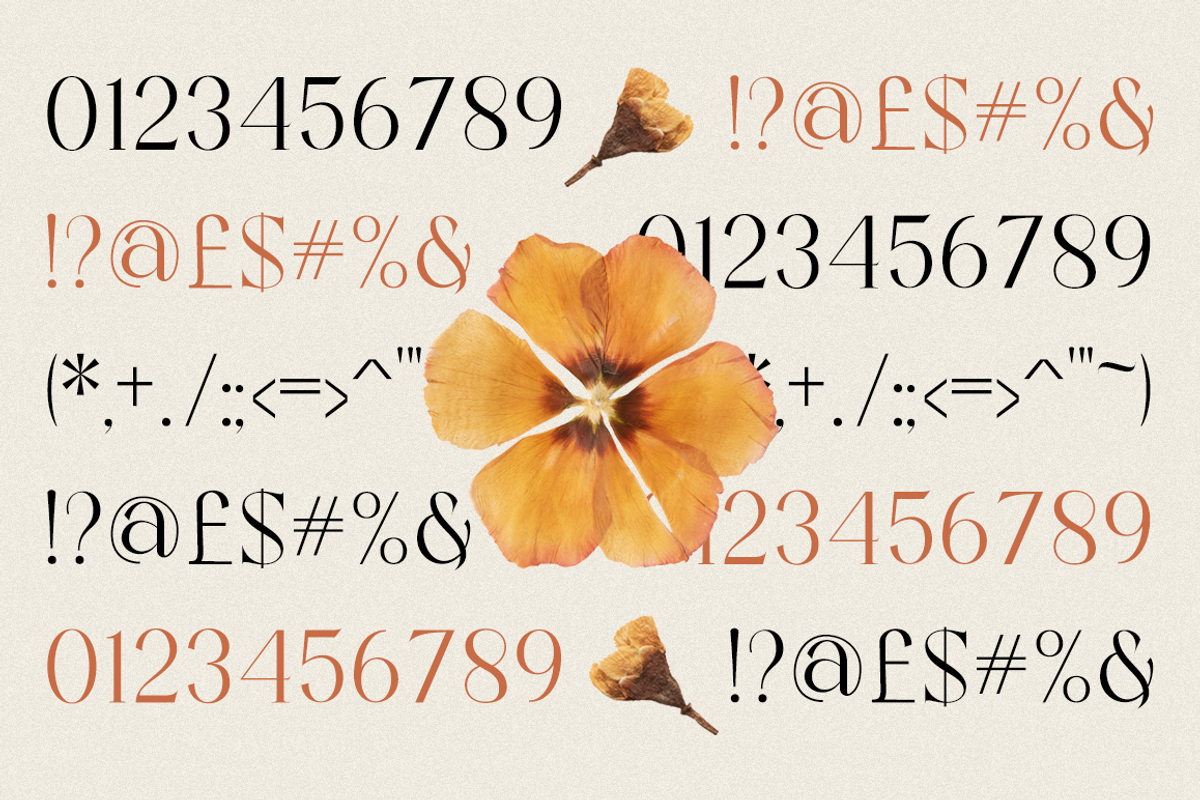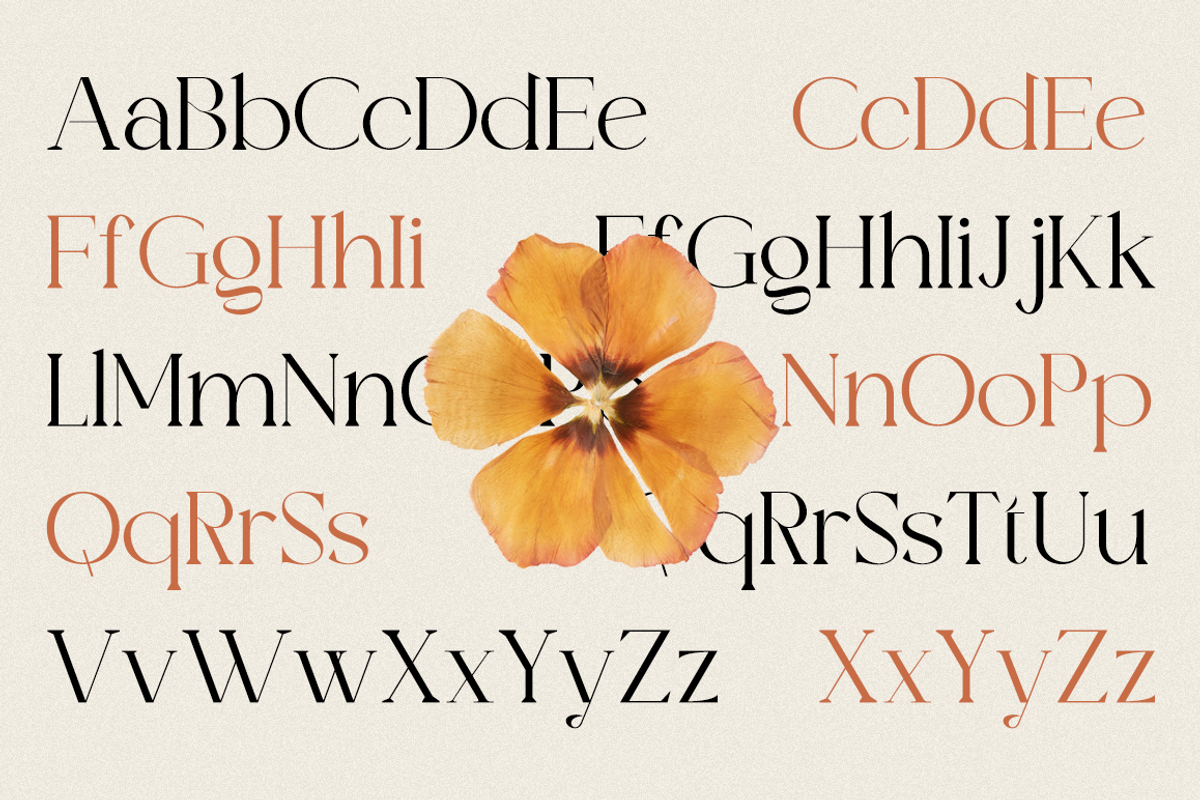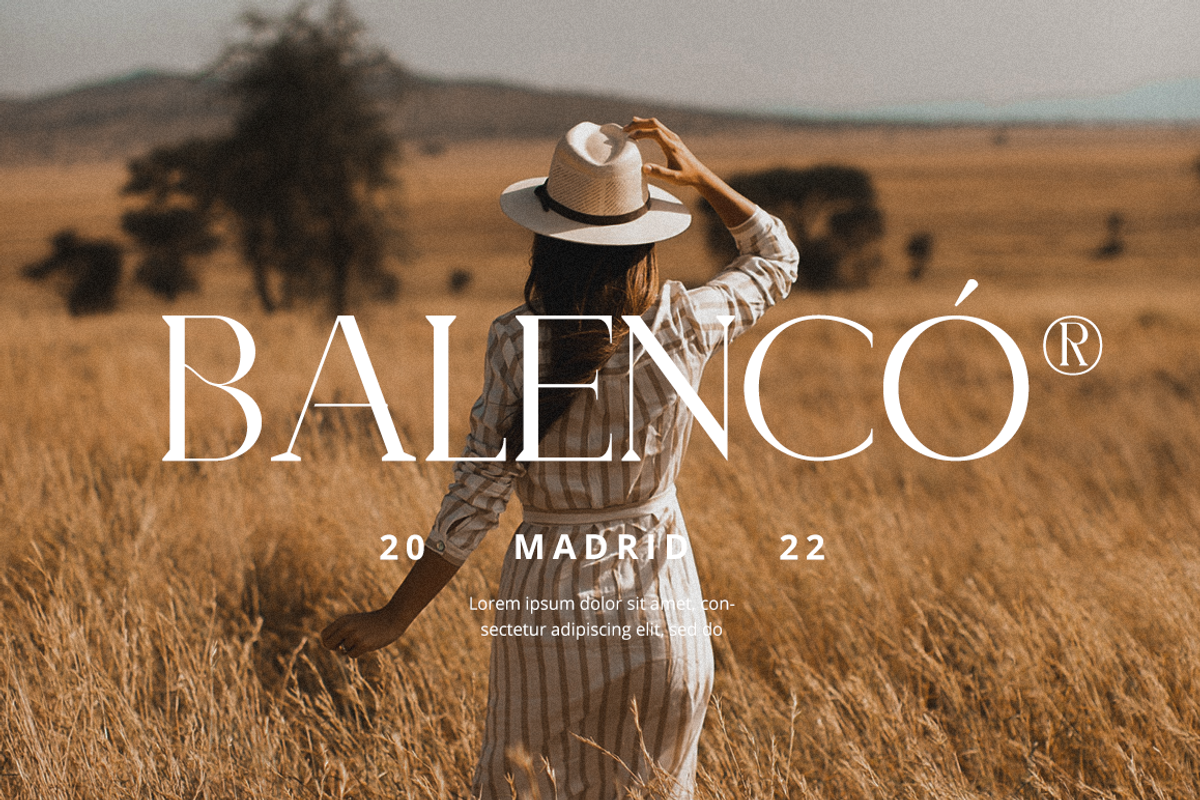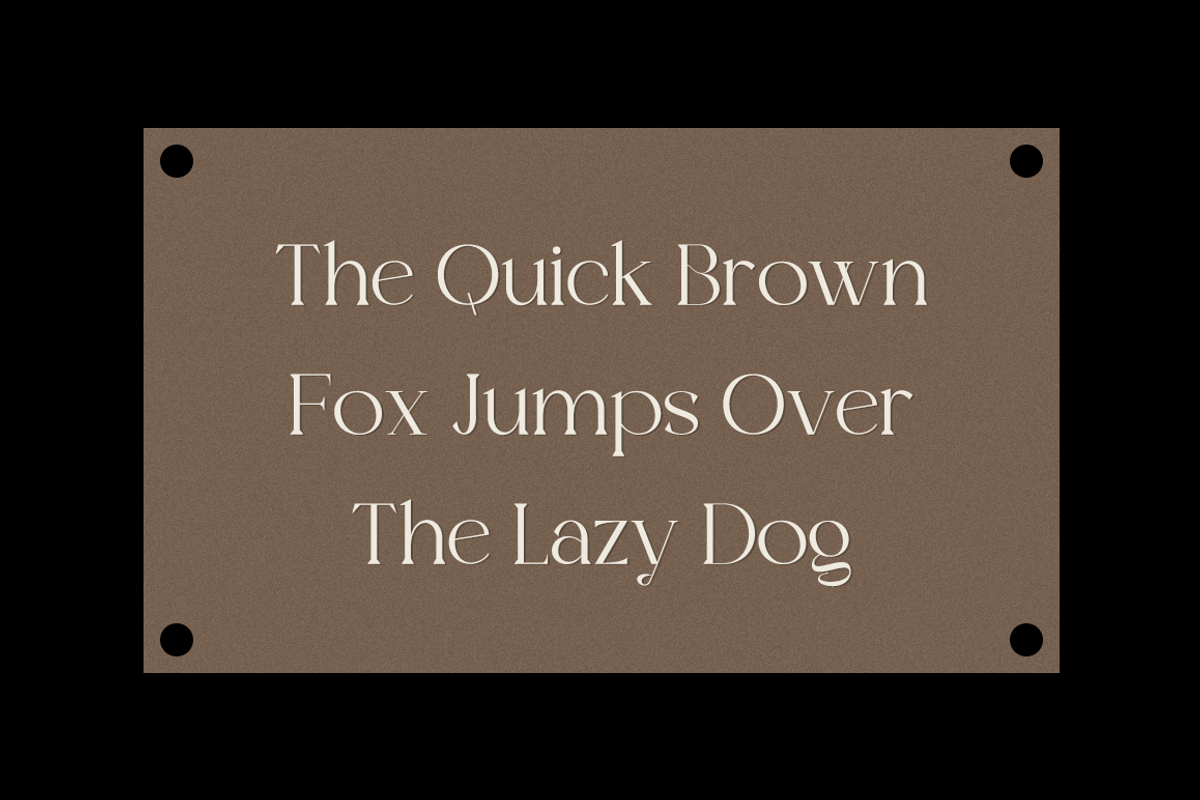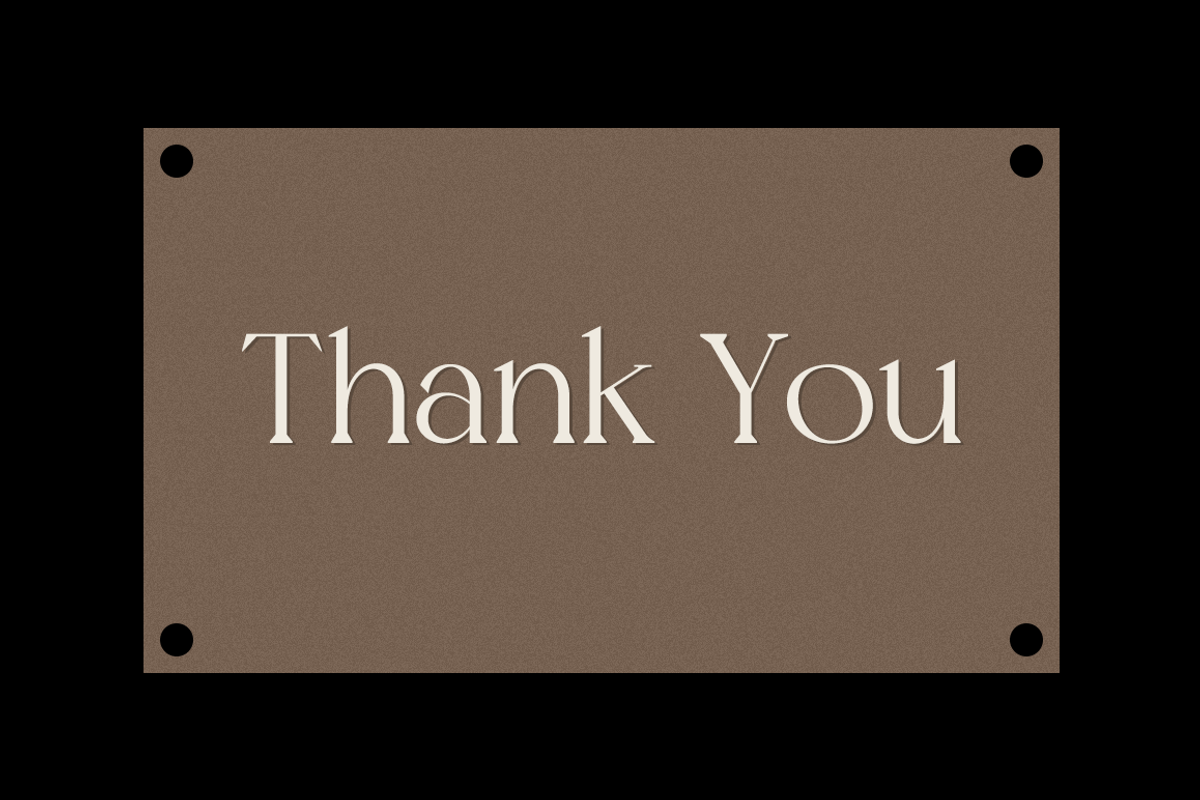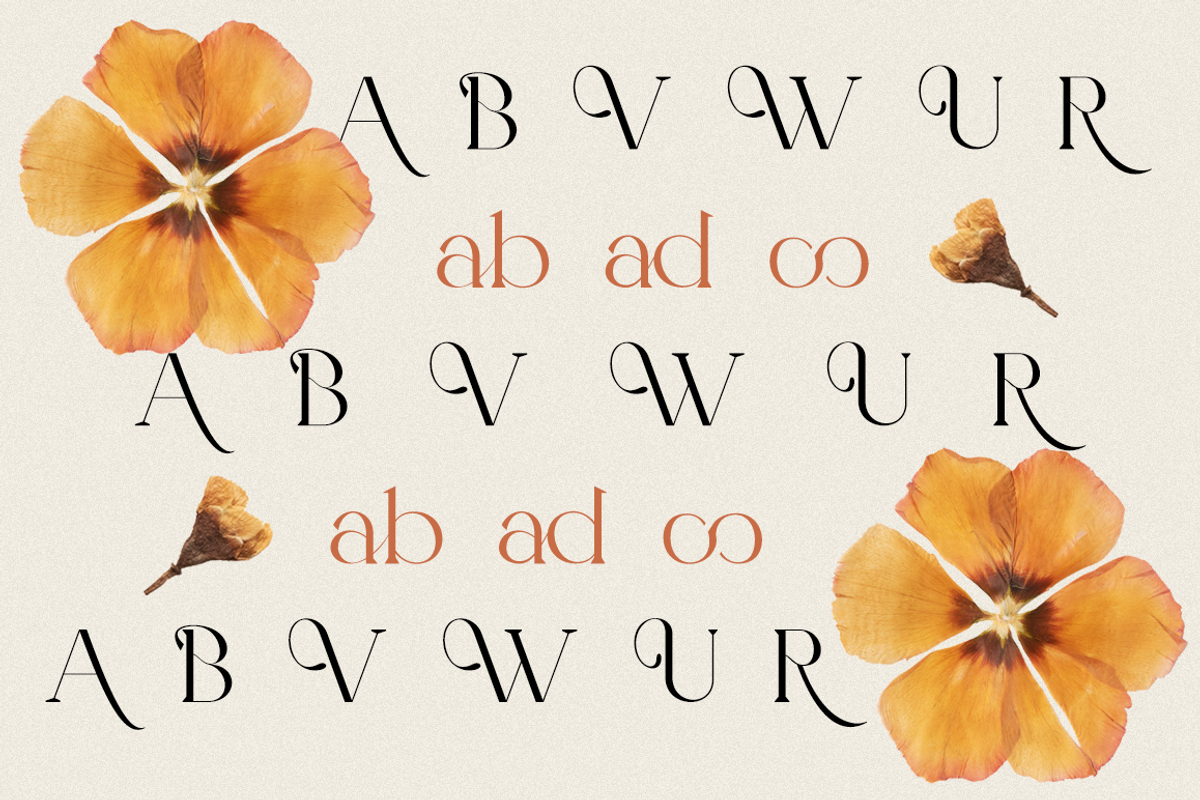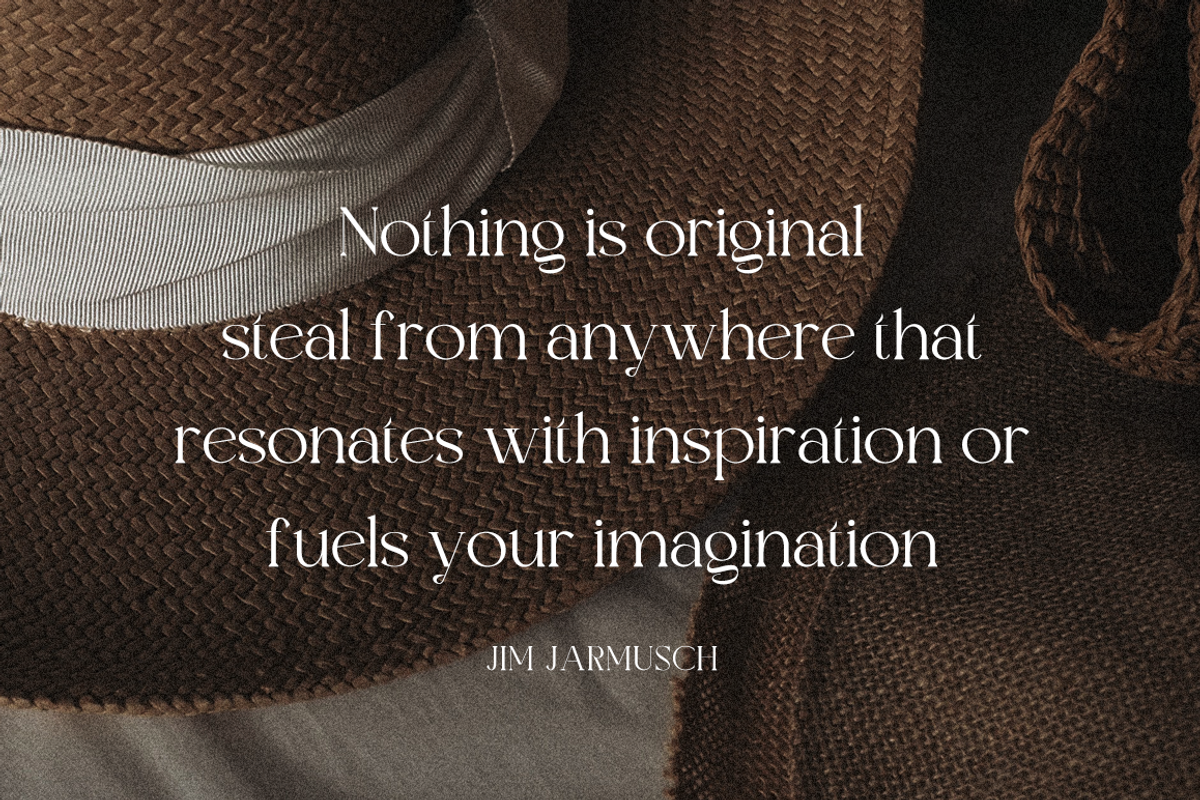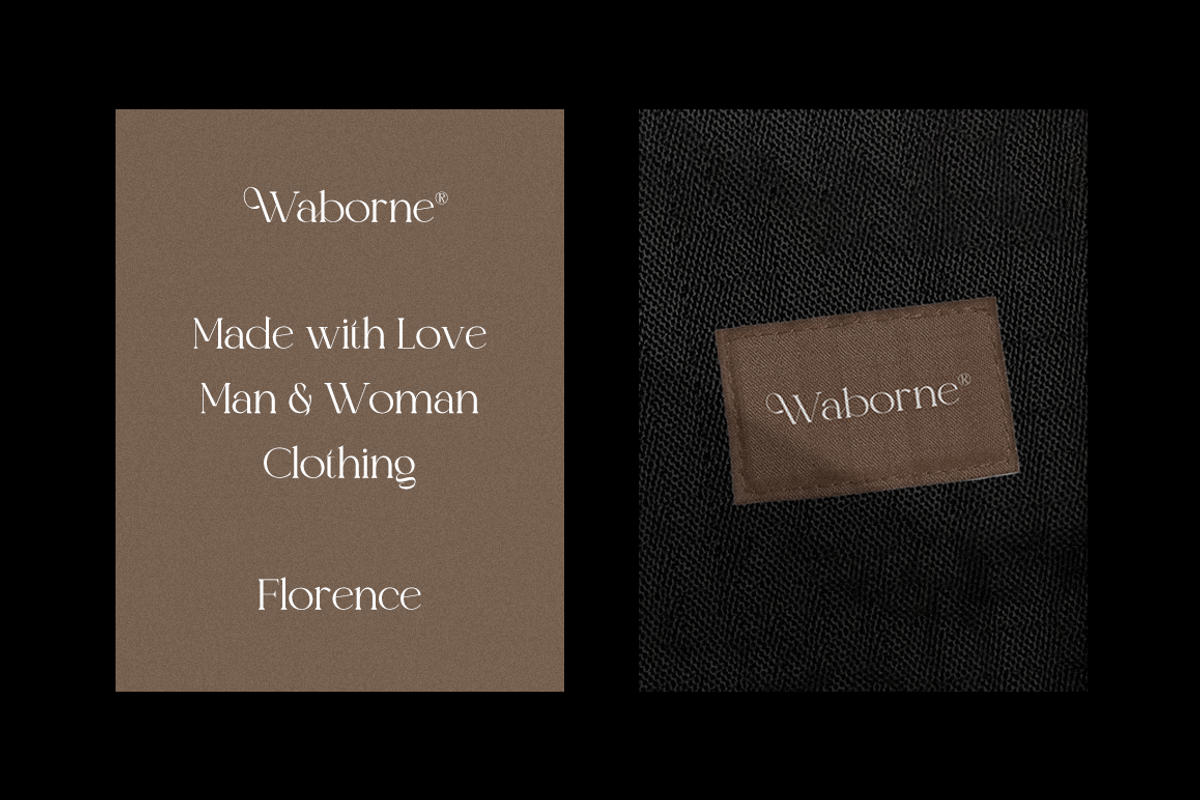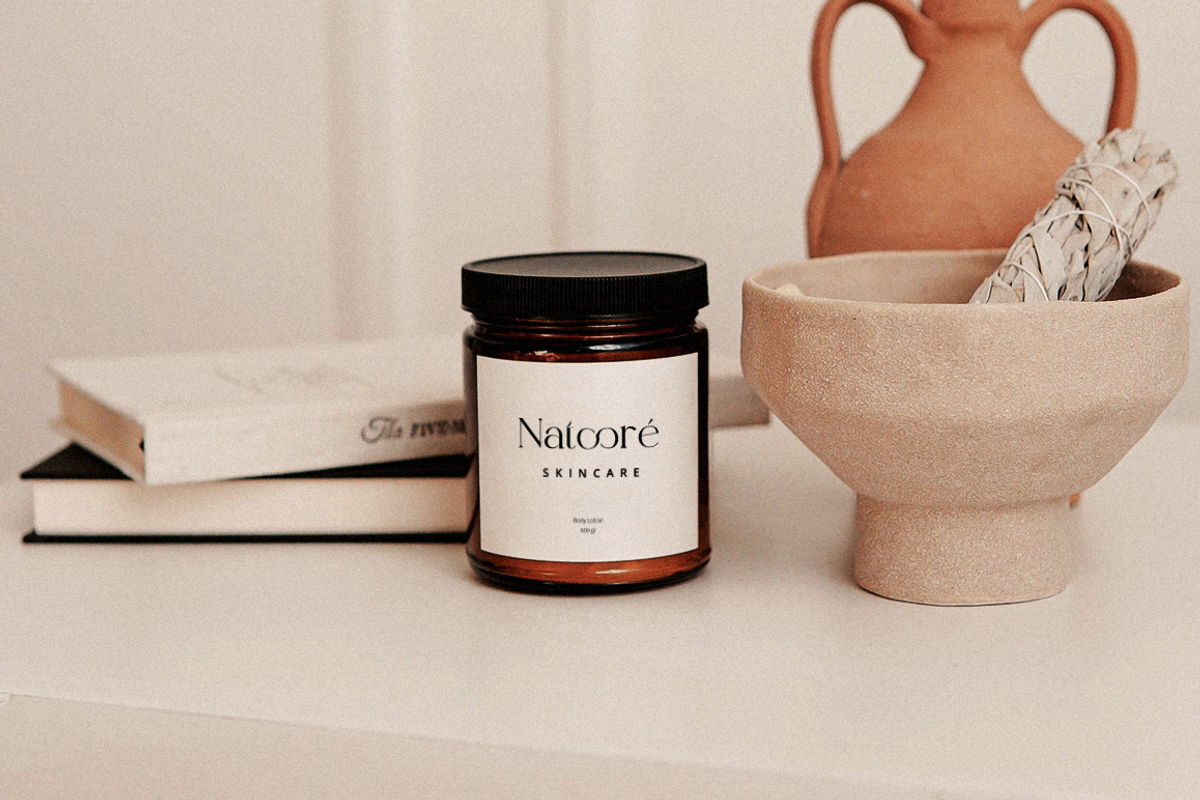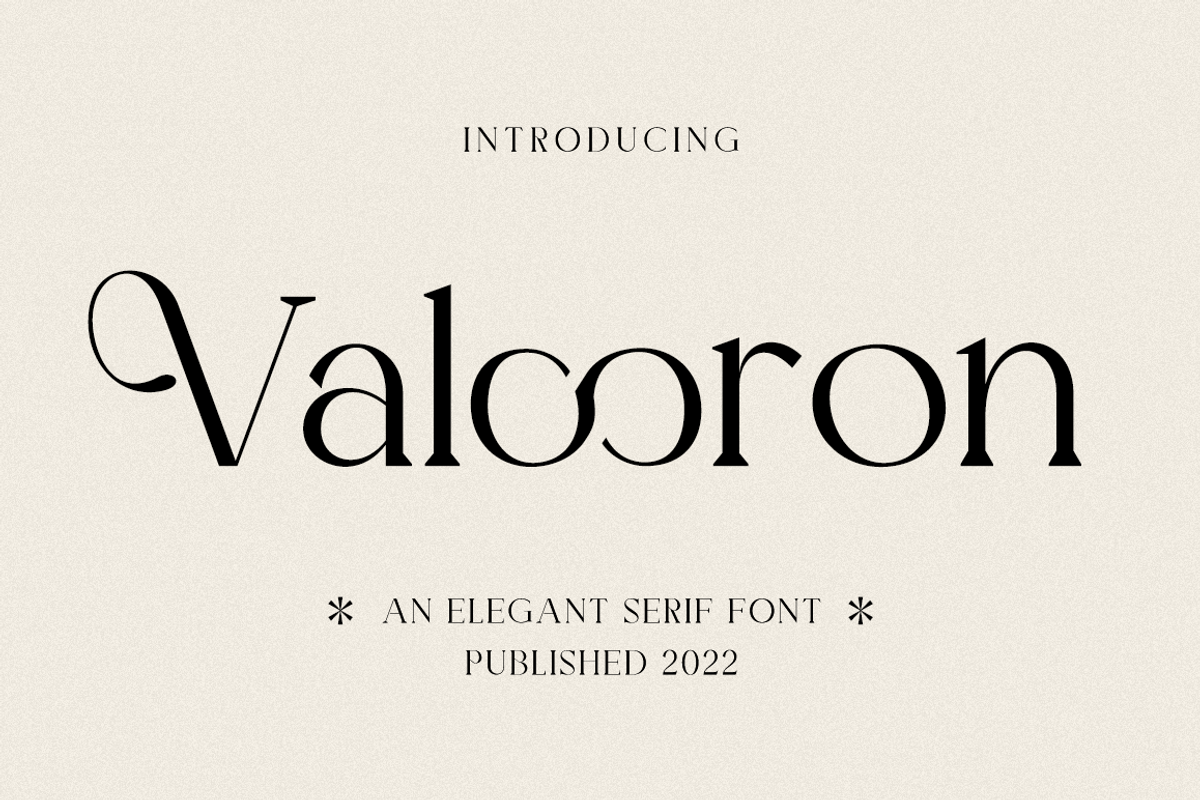
Valooron - Business Font
Valooron is a distinct, elegant and authentic serif font. Masterfully designed to become a true favorite, this font has the potential to bring each of your creative ideas to the highest level!